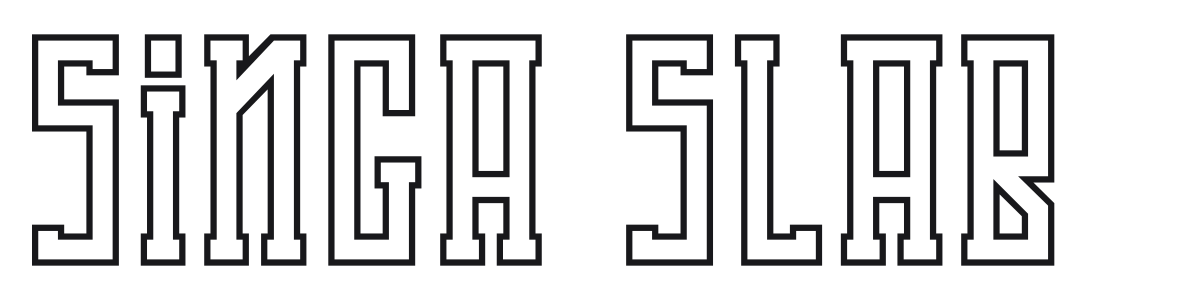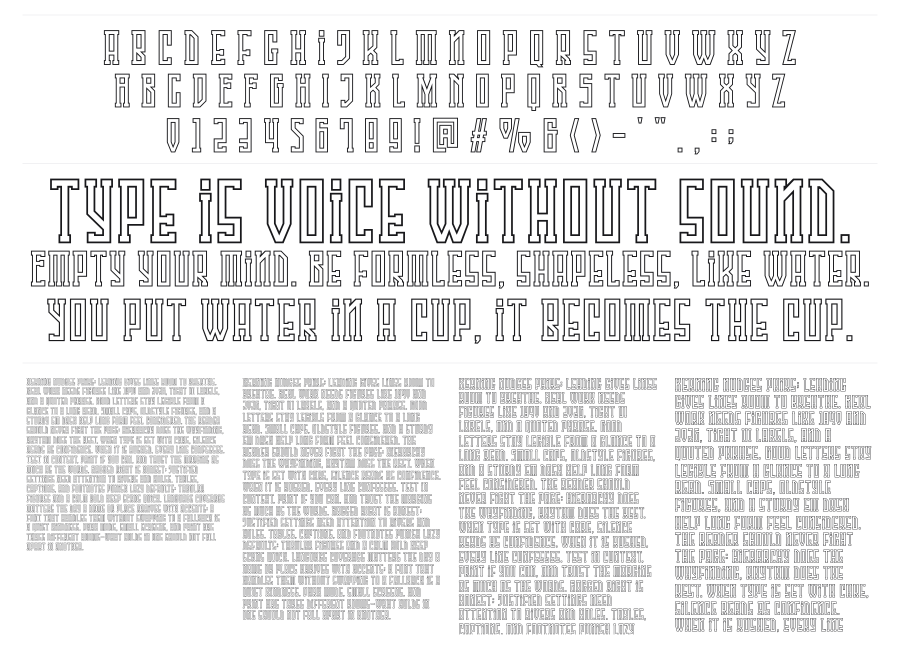
Singa Slab
Singa Slab is a condensed outline slab-serif built in the tradition of collegiate varsity block lettering. Every character is rendered as a double-line inline outline, giving the type an architectural layered quality that pops at large sizes. The tight proportions, rectangular serifs, and squared terminals make it a natural choice for sports branding, poster headlines, and team identity work.